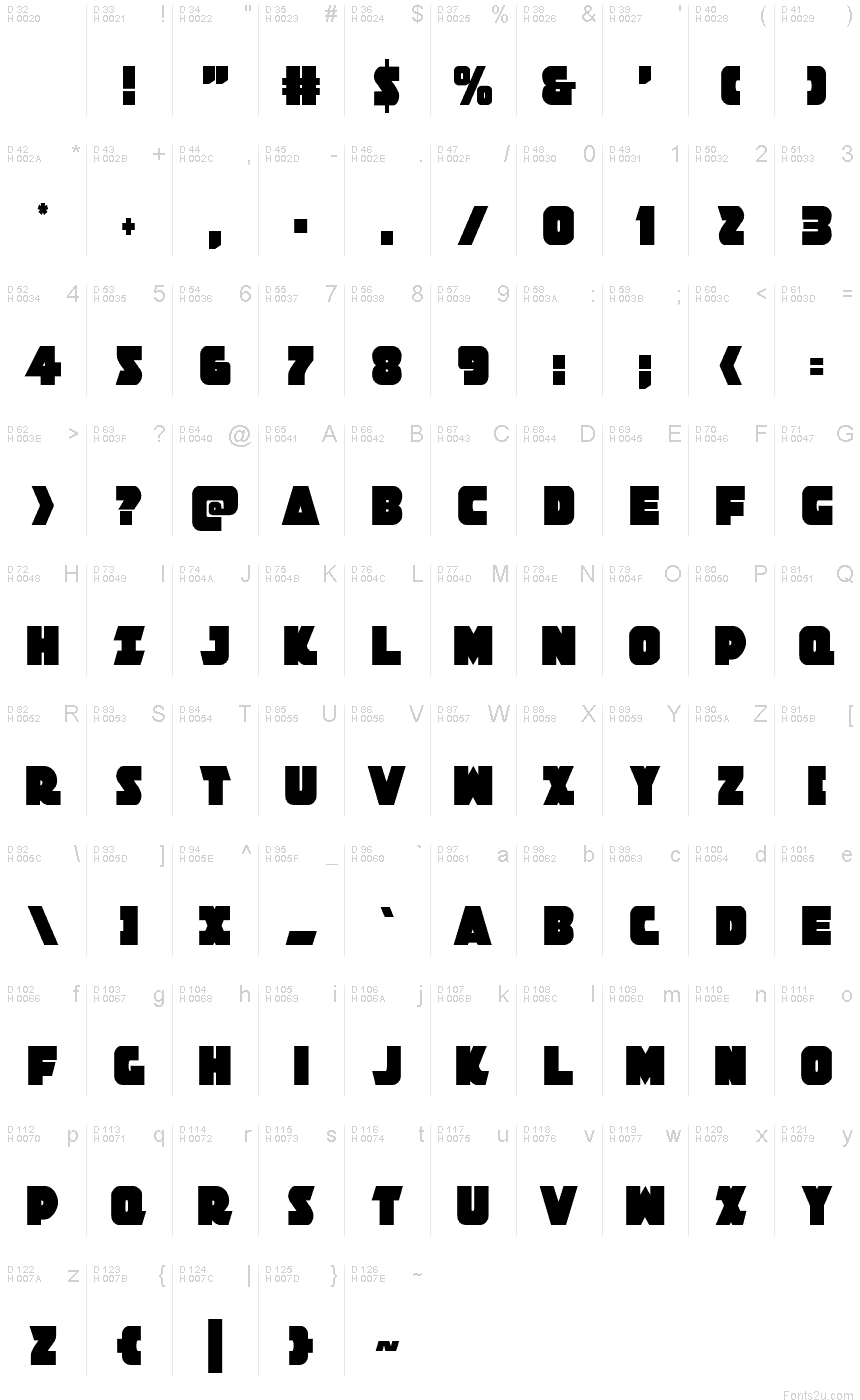
Jedi Special Forces Condensed from Iconian Fonts is a free futuristic display font with massive, tightly fitted capitals. Its blunt geometric bodies are cut by sharp triangular notches and narrow openings, giving the lettering a machine-made silhouette with hints of spacecraft panels and military insignia.
It can shift from science-fiction film posters to esports branding because the dense forms feel both cinematic and competitive. Album covers and game interfaces suit its angular, armored construction. Its clearest audience is fans of space opera and combat games.
Jedi Special Forces Condensed